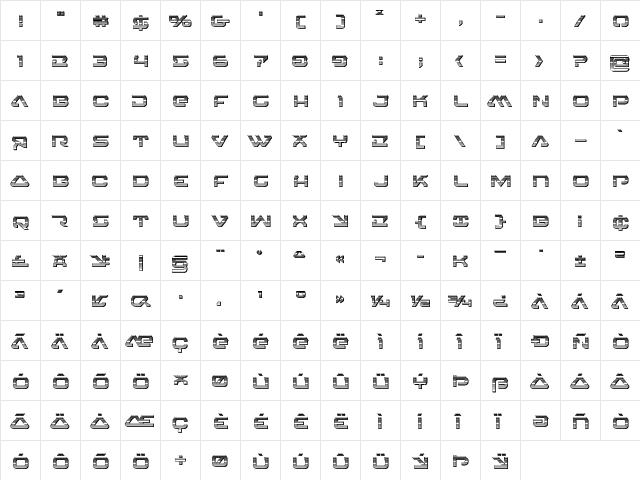
4114 Blaster Chrome Regular
Design Context for 4114 Blaster Chrome Typeface
4114 Blaster Chrome is a composed and adaptable typeface that performs quietly and consistently across a wide range of design contexts.